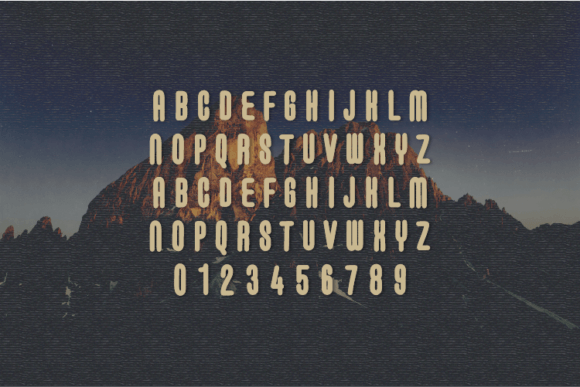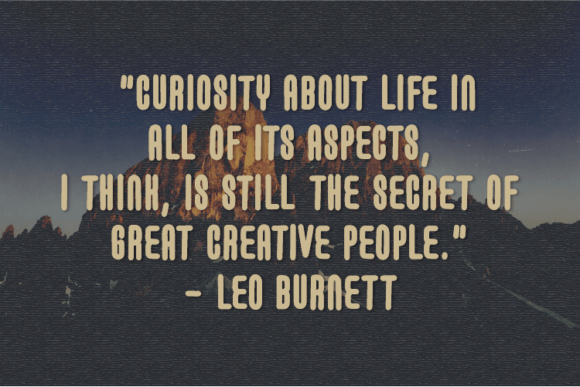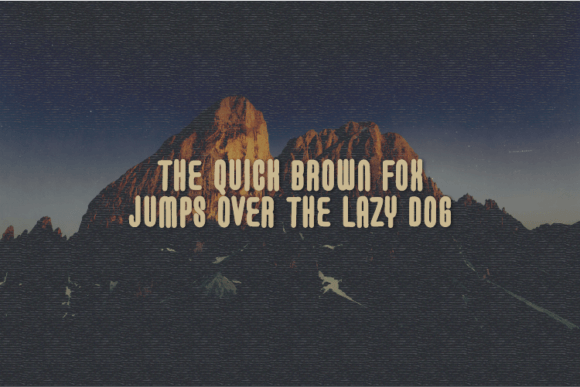
The Ultimate Guide to Broocklyn Font: Adding a Touch of Whimsy to Your Designs
I’ll never forget the time I was working on a project for a children’s birthday party invitation. I had the design concept nailed, but something was missing – the perfect font. I scoured the internet, tried out dozens of fonts, but none seemed quite right. That was until I stumbled upon Broocklyn Font. It was love at first sight! The fun, whimsical vibe was exactly what I needed to bring the design to life. In this article, I’ll share my experience with Broocklyn Font, its features, and how to make the most of it in your designs.
An Honest Review of Broocklyn Font
- ✨ Unique and quirky design that’s perfect for creative projects
- 🎉 Excellent for headlines, titles, and short paragraphs of text
- 💻 Works well on both digital and print materials
While Broocklyn Font is an excellent addition to any font library, there are a few things to keep in mind:
- 🤔 May not be the best choice for body text or lengthy paragraphs, as it can be a bit too playful
- ⚠️ Some characters may not work well in all contexts, such as in combination with certain symbols or emojis
The Backstory of Broocklyn Font
Broocklyn Font was designed with the intention of creating a fun and whimsical display font that could add a touch of personality to any design. The designer aimed to create a font that was both playful and legible, making it perfect for a wide range of creative projects.
| Font Name | Broocklyn Font |
| Author | Hanna Bie |
| What type of projects is Broocklyn Font best suited for? | Broocklyn Font is perfect for creative projects that require a fun and whimsical touch, such as children’s party invitations, social media graphics, and posters. |
| Is Broocklyn Font suitable for body text? | While Broocklyn Font is highly legible, it may not be the best choice for body text or lengthy paragraphs, as it can be a bit too playful. |